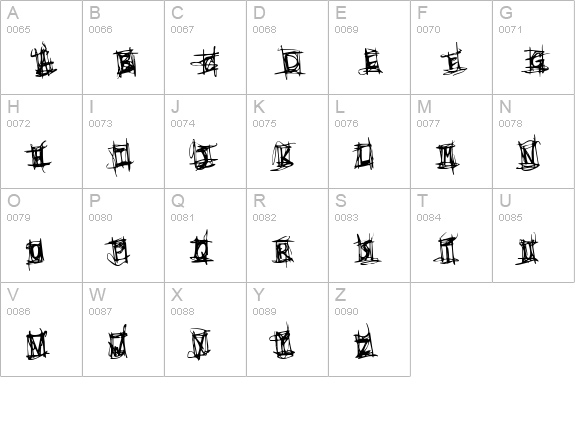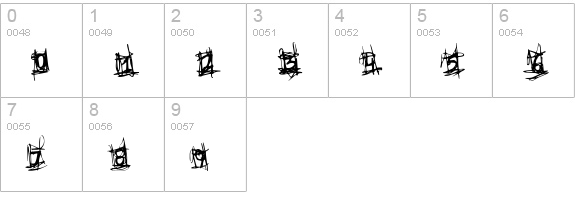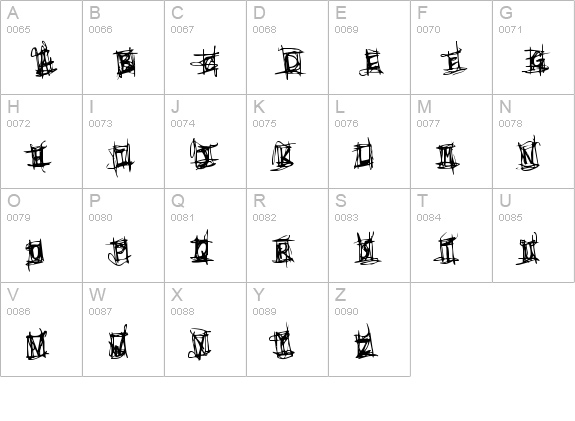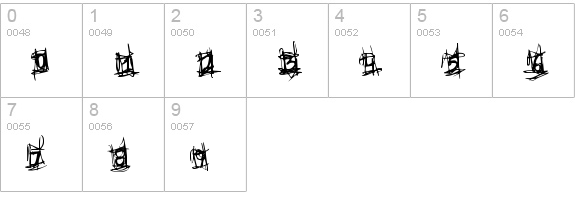
Very Short Fuse Font Details
Very Short Fuse is a captivating and electrifying font that will ignite your designs with its explosive energy. This font is designed to make a bold statement and leave a lasting impact on your audience. With its sharp edges and dynamic letterforms, Very Short Fuse commands attention and exudes a sense of urgency. This font is perfect for creating attention-grabbing headlines, striking logos, and powerful display designs. Its unique and edgy style will add a touch of excitement and intensity to any project. Whether you are designing a poster for a thrilling event, a high-energy sports advertisement, or a cutting-edge magazine cover, Very Short Fuse is sure to make your design stand out from the crowd. But what makes Very Short Fuse even more impressive is that it is completely free! Yes, you read that right. This incredible font is freely available to download at FontsMarket.com. Now you can bring a burst of energy to your designs without breaking the bank. So why wait? Download Very Short Fuse today and let its explosive power transform your designs into something truly extraordinary. Unleash the power of this font and watch as your creations ignite with creativity and excitement. Don't miss out on this incredible opportunity to add a touch of dynamism to your design arsenal. Get Very Short Fuse now and let your imagination explode!